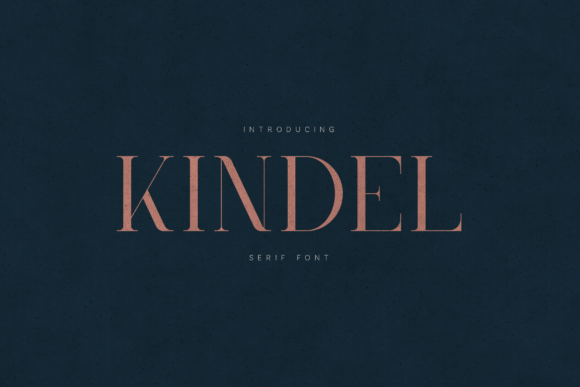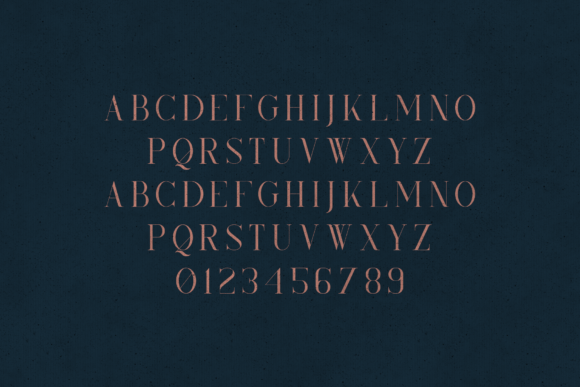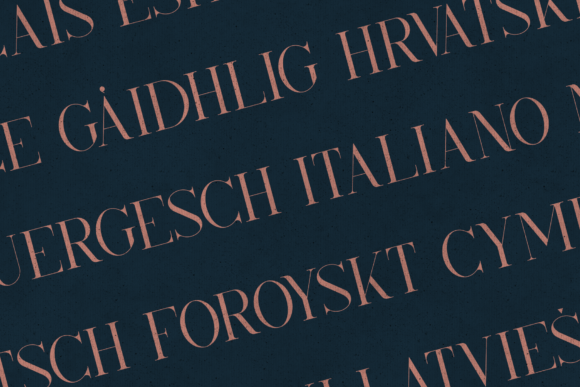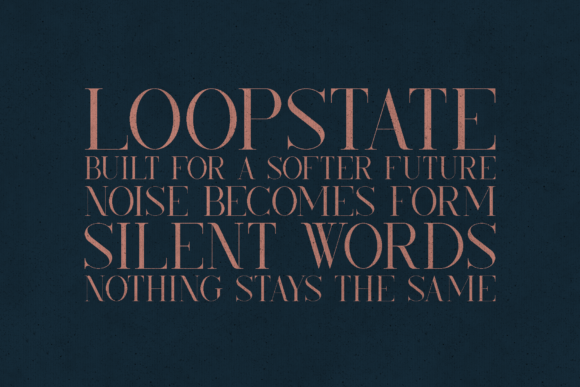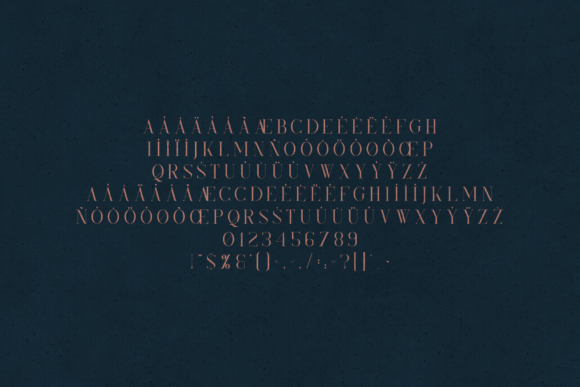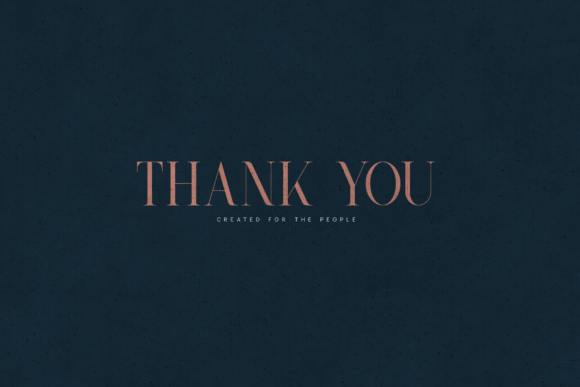
The Perfect Balance of Elegance and Clarity
There’s nothing quite like the thrill of creating a design that leaves a lasting impression. Whether it’s a poster for a new exhibition or a headline for a magazine cover, the right font can make all the difference. For designers, finding the perfect font can be a challenge, but what if we told you that there’s a font that can elevate your designs to the next level?
Meet Kindel Font, a sophisticated serif display font designed to make a statement. With refined contrast, graceful curves, and elegant letterforms, Kindel Font is perfect for large typographic compositions where elegance and clarity are key. Whether you’re working on editorial layouts, visual identities, or sophisticated branding projects, Kindel Font is sure to impress.
Kindel Font Key Features
- Font Family: Kindel is a serif font family designed by Carol Twombly, which is part of the Adobe Originals collection.
- Font Sizes: Kindel is available in a range of font sizes, from 6pt to 288pt, making it suitable for various applications, including body text, headings, and display typography.
- Unique Characteristics: Kindel’s unique characteristics include its elegant, refined design, which is reminiscent of traditional metal typefaces. The font features subtle flair on the terminals and a distinctive x-height, giving it a sophisticated and classic look.
- Resolution: Kindel is designed to be legible at a range of resolutions, from low-resolution screens to high-resolution printing.
- Language Support: Kindel supports a wide range of languages, including Latin, Greek, and Cyrillic scripts, making it a versatile choice for international typography.
Kindel Font Review
As a designer, I’ve had the chance to work with various fonts, and Kindel Font is one of them. ✨ One of the things that stands out about Kindel Font is its unique blend of modern and vintage elements. It’s a beautiful combination of clean lines and elegant curves, making it perfect for a wide range of designs.
Another aspect that I appreciate about Kindel Font is its versatility. ✨ It works well for both digital and print projects, and it’s suitable for various industries, from fashion to finance. Additionally, Kindel Font comes in multiple weights and styles, making it easy to customize and experiment with different looks.
What Doesn’t Work
While Kindel Font has many strengths, it also has some limitations. ⚠️ One of the main drawbacks is its relatively limited language support. It may not be suitable for projects that require a wide range of languages. Additionally, some users may find the font a bit too ornate, making it difficult to read at smaller font sizes.
In conclusion, Kindel Font is a solid choice for designers who want a unique and elegant font. While it has some limitations, its strengths far outweigh its weaknesses. If you’re looking for a font that can add a touch of sophistication to your designs, Kindel Font is definitely worth considering.
- Unique blend of modern and vintage elements
- Versatile and suitable for various industries
- Multiple weights and styles
- Beautiful combination of clean lines and elegant curves
- Limited language support
- May be too ornate for smaller font sizes
Tips for Getting the Most Out of Kindle Font
Use Kindle Font for titles, headings, and emphasis to create a clear and visually appealing design.
Experiment with different font sizes and styles to create a unique and engaging look.
Combine Kindle Font with other fonts to create a visually interesting and balanced design.
Use Kindle Font for:
eBooks and digital publications
Book covers and marketing materials
Presentations and reports
Web design and content creation
Alternatives to Kindle Font for Designers
Playfair Display is a high-end serif font, ideal for luxury brands, magazines, and high-end packaging. It has an elegant and sophisticated feel, making it perfect for creating a premium look.
Comparison to Kindle Font: While Kindle Font is a modern sans-serif, Playfair Display is a classic serif font. Playfair Display has a more luxurious feel, whereas Kindle Font is more minimalist.
Lato is a modern sans-serif font, suitable for digital products, apps, and websites. It’s clean, simple, and highly legible, making it perfect for body text and titles.